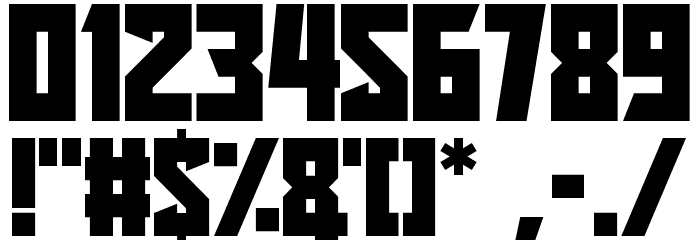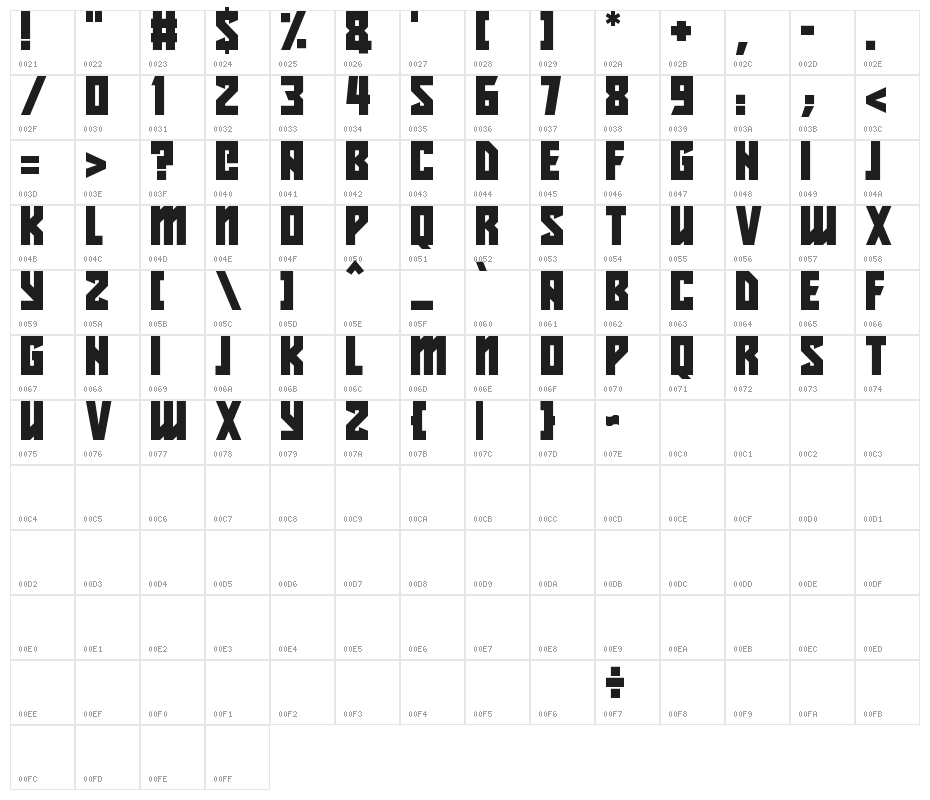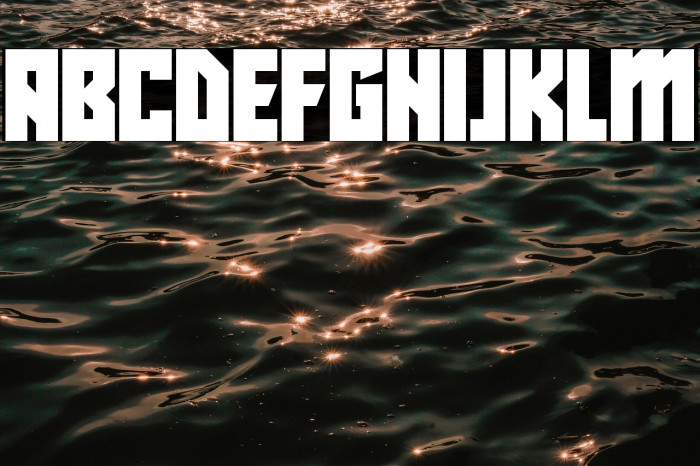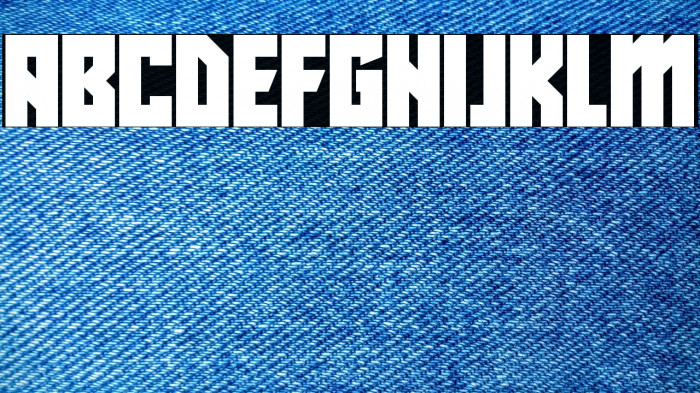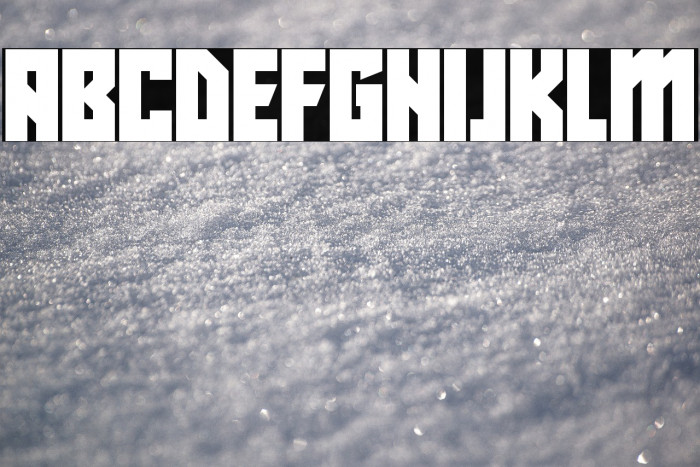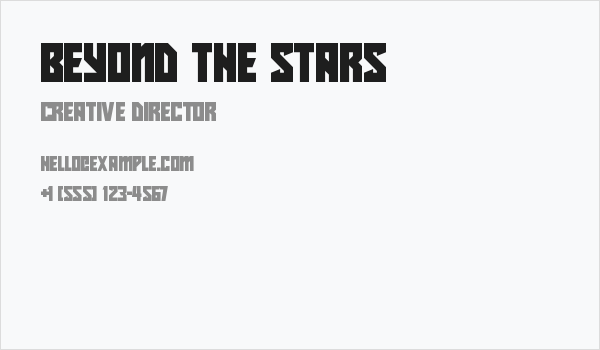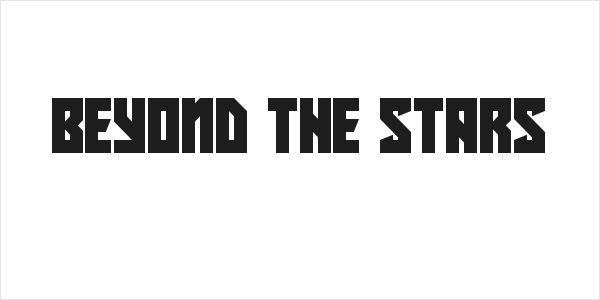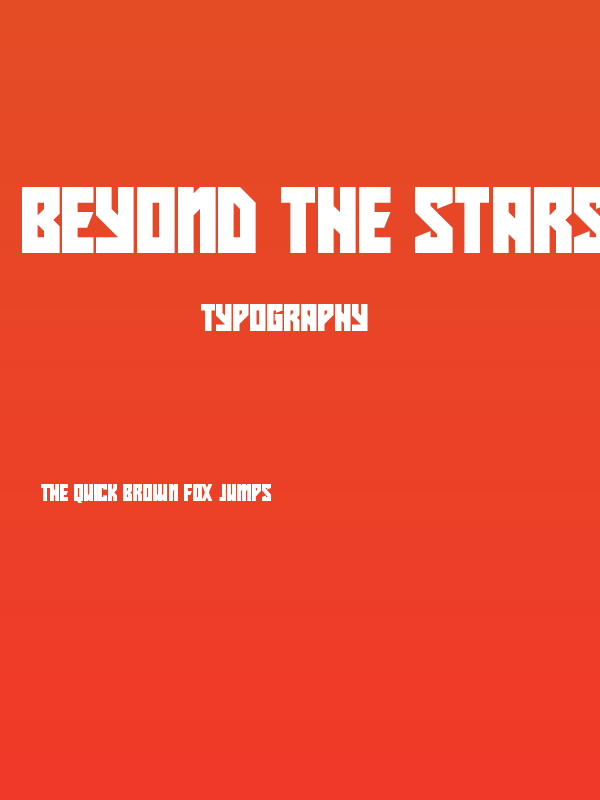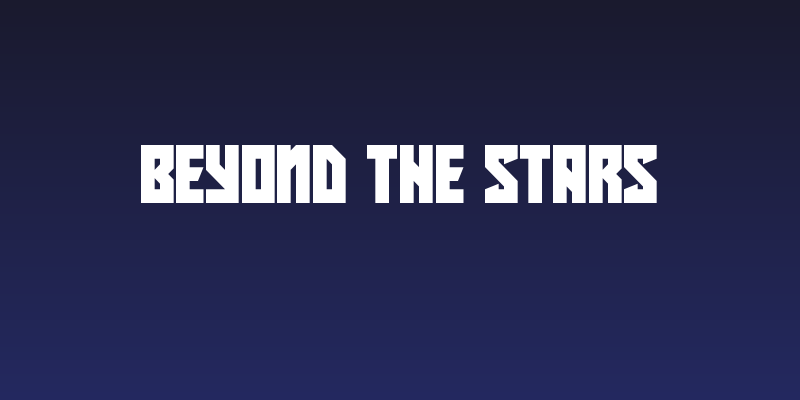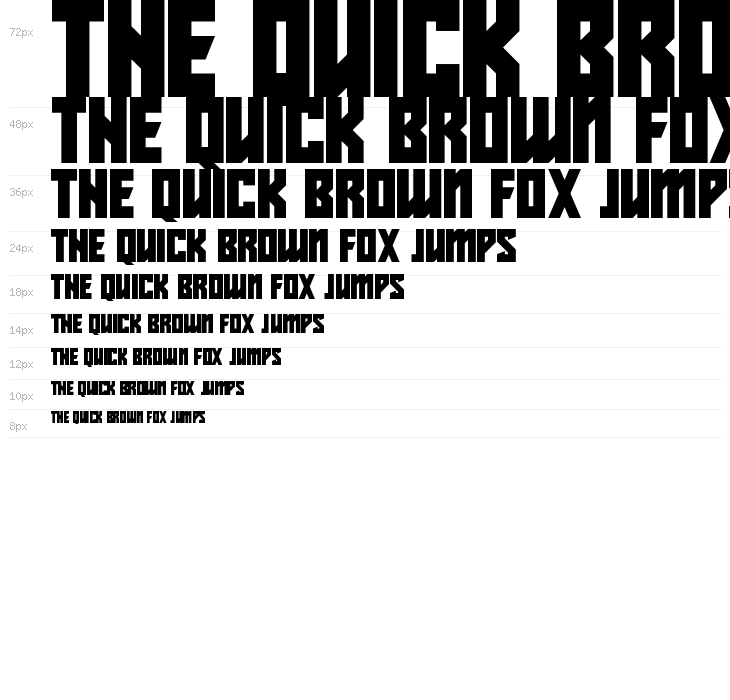
Beyond The Stars Font
Beyond The Stars Description
This font features a bold, geometric design with sharp angles and a futuristic aesthetic. The characters are constructed with thick, uniform strokes, giving them a strong and impactful presence. The uppercase letters are particularly striking, with a blocky appearance that suggests strength and stability. The numerals and special characters maintain this bold style, ensuring consistency across all glyphs. The overall design is modern and eye-catching, making it suitable for projects that require a strong visual impact.
| Proposed Projects | Ideal for sci-fi themed posters, video game titles, branding for tech companies, and any project needing a modern, bold look. |